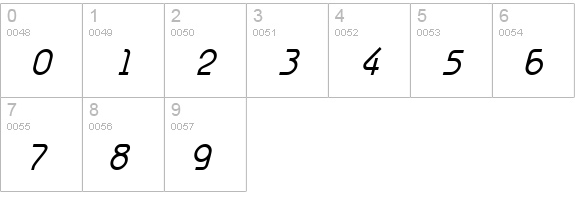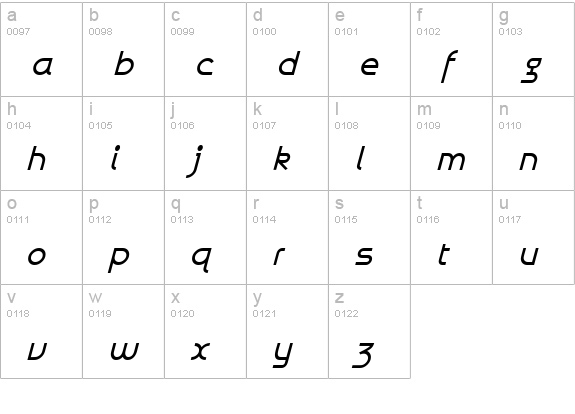
Galexica BoldItalic Font Details
Introducing Galexica BoldItalic, a striking and dynamic font that exudes confidence and creativity. With its bold and italicized design, this font is perfect for making a statement and adding a touch of elegance to any project. Galexica BoldItalic is a versatile font that can be used for a variety of purposes, including headlines, logos, branding, social media posts, and more. Its unique combination of boldness and italics creates a sense of movement and energy, making it ideal for designs that require a strong visual impact. One of the best things about Galexica BoldItalic is that it is completely free to download. You can easily access this font by visiting FontsMarket.com, a trusted source for high-quality fonts. Whether you are a professional designer or a casual hobbyist, this font is readily available for you to use in your projects without any hassle. With Galexica BoldItalic, you can unleash your creativity and let your designs stand out from the crowd. Its eye-catching style and impeccable readability make it a go-to choice for designers who want to make a lasting impression. Elevate your designs with Galexica BoldItalic and experience the power of a font that effortlessly combines boldness and elegance. Download this font for free at FontsMarket.com and unlock a world of possibilities for your next creative project.